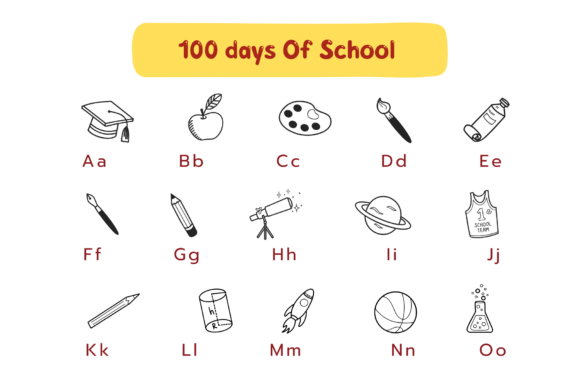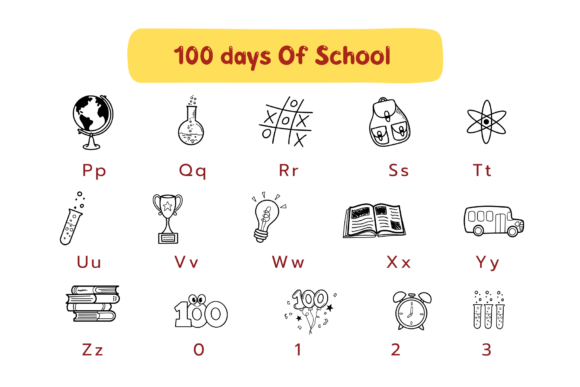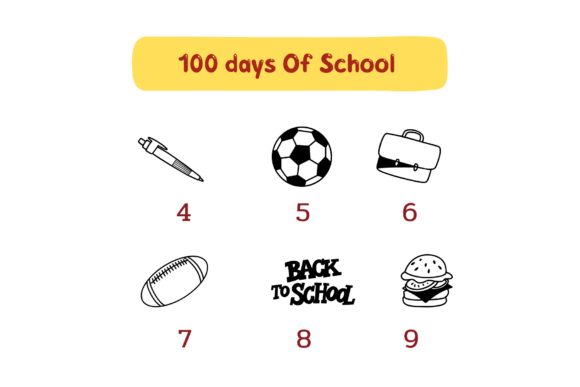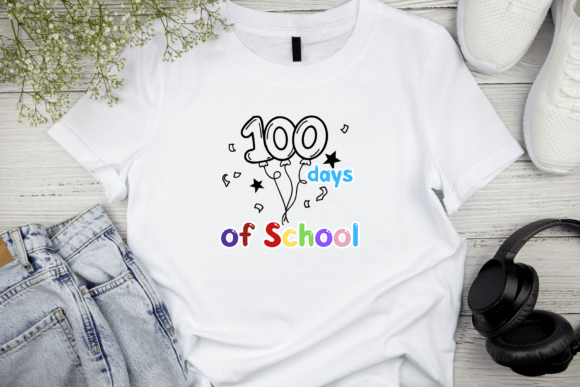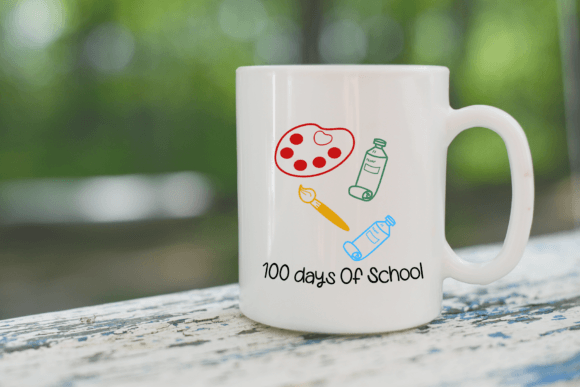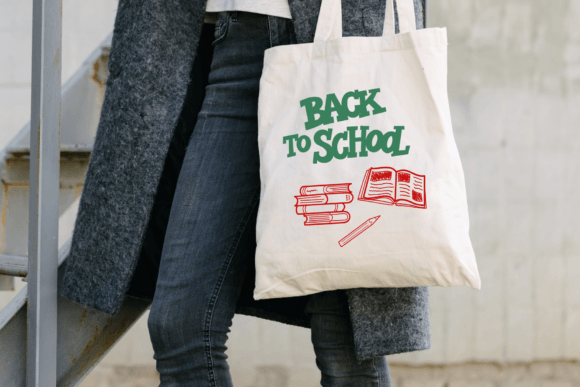
Celebrating Creativity in the Classroom with the 100 Days of School Font
I still remember the time I was working on a project to create educational materials for a client’s kids’ workshop. I was struggling to find the right font that would make the posters and worksheets fun and engaging. That’s when I stumbled upon the 100 Days of School Dingbats Font, and it completely transformed my designs! In this article, I’ll share my experience with this delightful font, its features, and how you can use it to add charm and personality to your designs.
What is the 100 Days of School Font?
The 100 Days of School Dingbats Font is a collection of hand-drawn school-themed doodles, including books, pencils, paintbrushes, trophies, and more. This font is perfect for designing fun projects like classroom decorations, student awards, lesson plans, and educational posters. The playful and versatile icons make adding charm and personality to your designs easier than ever!
My Honest Review
Here’s what I love about the 100 Days of School Font:
• ✨ Unique and hand-drawn designs that add a personal touch to your projects
• ✅ Wide range of school-themed icons, from books to trophies
• 🎨 Perfect for educational projects, classroom decorations, and student awards
While I love this font, there are a few small quirks to consider:
• ⚠️ Limited character set, as it’s primarily designed for dingbats and icons
• 🤔 May require some experimentation to find the perfect combination of icons and text
The 100 Days of School Font was created by a talented designer who wanted to bring a touch of whimsy and fun to educational materials. Inspired by her own experiences as a teacher and designer, she created a font that would make learning fun and engaging. With its unique and hand-drawn designs, the 100 Days of School Font is sure to bring a smile to anyone’s face.
What is the 100 Days of School Font? The 100 Days of School Font is a collection of hand-drawn school-themed doodles, including books, pencils, paintbrushes, trophies, and more.
What can I use the font for? You can use the font for designing fun projects like classroom decorations, student awards, lesson plans, and educational posters.